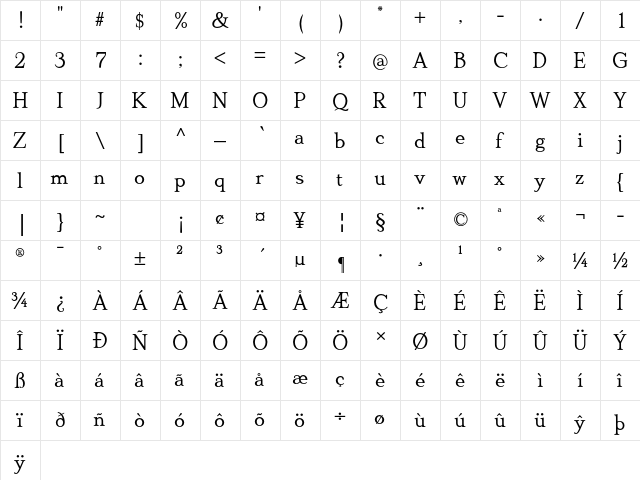
DionisiiOTF Regular
| Foundry | Denis A Serikov |
| Designer | Denis A Serikov |
Design Context for DionisiiOTF Typeface
DionisiiOTF takes a measured approach to typography — its balanced proportions and neutral character make it a reliable workhorse for both digital and print work.